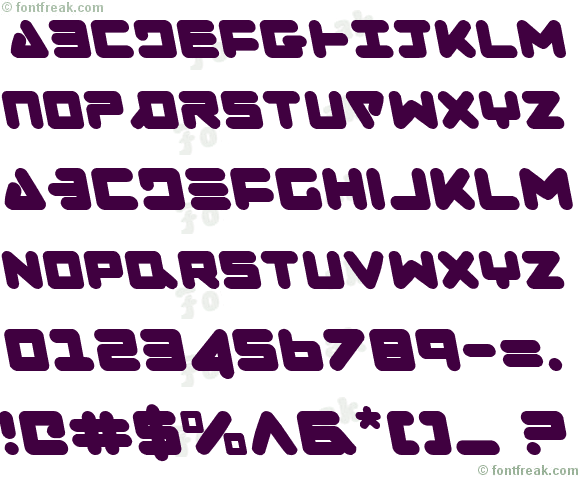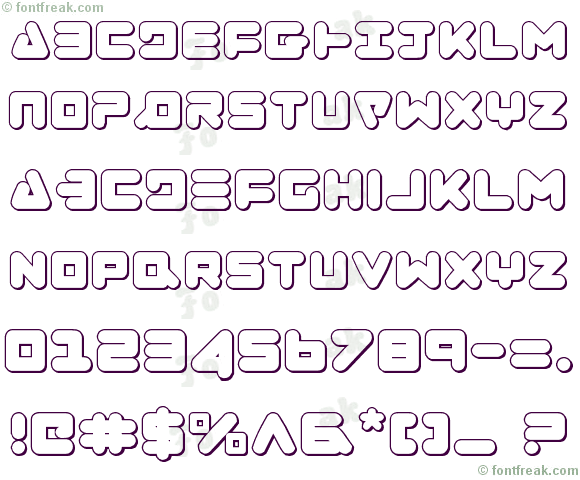
About Zealot
The Zealot font, created by Iconian Fonts, is a striking display typeface that captivates with its bold, outline style. This freeware font, designed in 2008, features an expanded and italicized appearance that enhances its visual dynamism. The stroke weight of Zealot is robust, providing a commanding presence in any design, while the clean lines and generous spacing ensure readability even at larger sizes. Its unique decorative elements add a layer of personality, making it a versatile choice for various creative projects.
The Zealot font is particularly well-suited for eye-catching applications such as movie posters, where its bold aesthetic can draw attention and convey a sense of drama. Additionally, it works wonderfully on restaurant menus, providing a modern flair that can elevate the dining experience. Graphic designers may find it ideal for branding materials, offering a distinctive look that can help businesses stand out. Furthermore, the font can be effectively utilized in promotional flyers for events, giving them a contemporary edge. Content creators looking to enhance their online presence will also appreciate the Zealot font for social media graphics that demand a bold statement.
Targeting graphic designers, small business owners, and content creators, the Zealot font free download opens up creative possibilities without the burden of licensing fees. Its unique blend of boldness and elegance makes it a standout choice for anyone seeking to make a memorable impact in their designs. With its distinctive outline style and modern aesthetic, Zealot is not just a font; it’s a design statement that conveys confidence and creativity. Whether you’re working on a personal project or a professional endeavor, Zealot can elevate your typography to new heights.